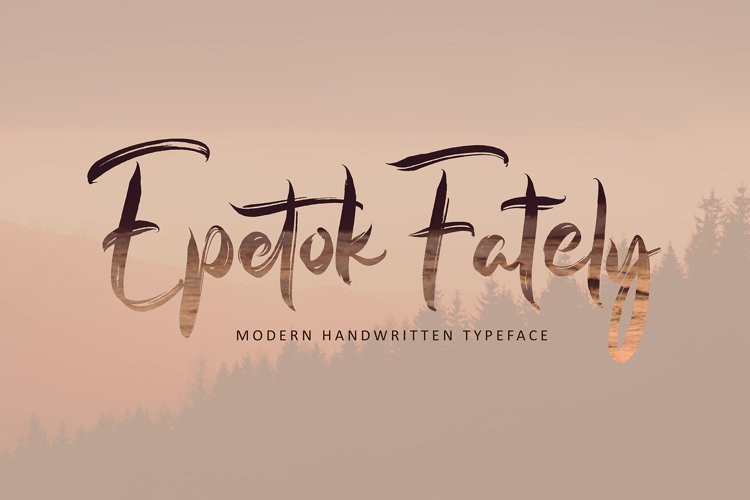
Epetok Fately font
Epetok Fately font with new style, this font will perfect for many different project ex: quotes, logo, blog header, poster, banding, letter, invitation, stationery, etc…